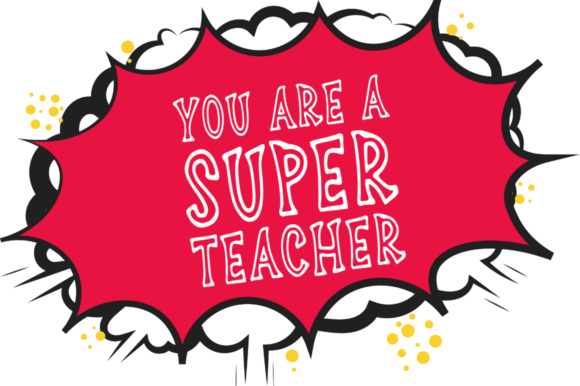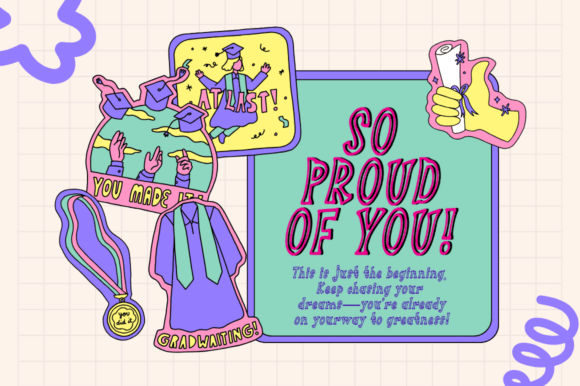
Unleash Your Creativity with Aahladda Font
Have you ever found yourself staring at a blank page, waiting for the perfect font to bring your creative project to life? We’ve all been there. But what if you could add a touch of whimsy and personality to your designs with just one click? Enter the Aahladda Font, a playful hand-drawn display font that’s sure to make your designs stand out.
With its outlined form and dual-style option, Aahladda Font offers flexibility and versatility for designers. Whether you’re creating a fun and quirky poster or a serious business branding, this font is perfect for adding a friendly and artistic vibe to your designs. Its unique, hand-drawn look makes it perfect for school projects, chalkboard designs, and kids’ crafts, and its warmth and personality shine through in every character.
- Unique Character Set: Aahladda Font features a unique set of characters, including a wide range of Devanagari and Latin characters, making it suitable for various languages.
- Script and Styling Options: The font offers a range of script and styling options, including cursive, italic, and bold styles, allowing users to customize their text.
Aahladda Font Review
Overall, I think Aahladda Font is a solid addition to any designer’s toolkit. ✨ Here are a few things that stand out:
- Unique aesthetic: The font has a quirky, hand-drawn feel that’s perfect for adding some personality to a project.
- Good legibility: Despite its whimsical appearance, Aahladda Font is surprisingly easy to read, even at smaller sizes.
However, there are a few limitations to be aware of: ⚠️
- Limited language support: If you need to typeset text in a non-English language, you may find that Aahladda Font doesn’t support it.
- No bold or italic versions: While this isn’t a deal-breaker, it’s worth noting that the font doesn’t come with any bold or italic versions, which can limit its versatility.
- Some kerning issues: I’ve noticed that the font can be a bit finicky when it comes to kerning (the spacing between letters), which can be distracting in certain contexts.
Overall, I think Aahladda Font is a great choice for designers who want to add some visual interest to their projects without sacrificing readability. With a little patience and finesse, it can be a valuable addition to any design toolkit.
To get the most out of Aahladda Font, use it for:
- Headings and titles in your designs.
- Creating unique and eye-catching typography.
- Adding a touch of elegance to your presentations and documents.
Remember to pair Aahladda Font with other fonts and design elements to create a visually appealing design.